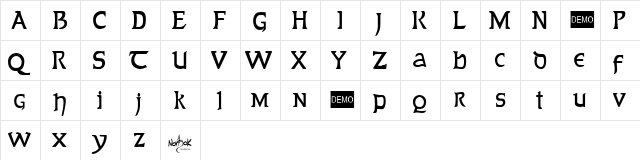
Wishmaster Credits DEMO Regular
| Designer | Thomas W. Otto |
Design Context for Wishmaster Credits DEMO Typeface
Wishmaster Credits DEMO is a composed and adaptable typeface that performs quietly and consistently across a wide range of design contexts.